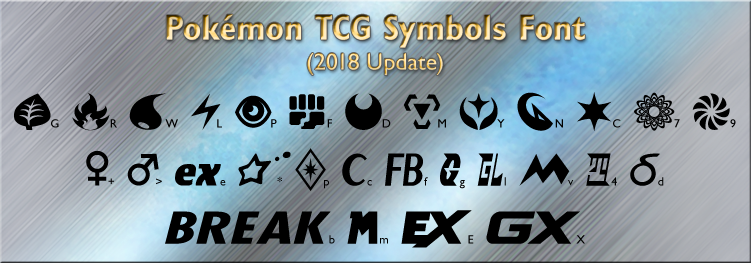
UPDATE (1/29/18): A long-overdue update. Type symbols have been reshaped to better match the squarish text symbols from official cards, most of the symbols were enlarged (again), and the Prism Star symbol was added. (NOTE: Depending on the font size, you may have to apply faux bold to symbols with thinner strokes, such as Fire and Prism Star.)UPDATE (10/07/16): I enlarged the "ex" symbol that was too small. I also made the Type, Shining, and Mega symbols slightly larger.
UPDATE (9/28/16): Added gender symbols for Nido cards (Advance-series and onward only). Also reassigned some symbols to different characters.
UPDATE (9/21/16): The symbols were too small, so I enlarged them. Tested alongside Gill Sans and they seem to work fine now.
That one's based on Miracle Energy from Neo Destiny. Figured I'd include it since I included Rainbow.
Are there any plans to add the new Prism Star symbol to the mix?
Yes, eventually. I still need to update the Type symbols themselves as well (the Type symbols seen in card text are slightly different than those seen on Energy cards, which these were based on).
The sizes of some symbols still need to be tweaked a bit. Type symbols are still a bit too small and I noticed the other day that the GX symbol (I think) was a pixel too short. I'll try to update these in the future but, until then, these changes can be made manually in Photoshop.
Sizes should be more accurate now. Also added the Prism Star symbol.
Just one thing is it me or do you think the dark symbol looks abit too wide than it is suppose too
The Type icons are based their appearance on Energy cards, so there may be slight differences between them and the text symbols on DP-onward cards. I would've made them closer, but there simply aren't enough high-resolution images of the text symbols.
Type symbols should be closer to the text symbols now.